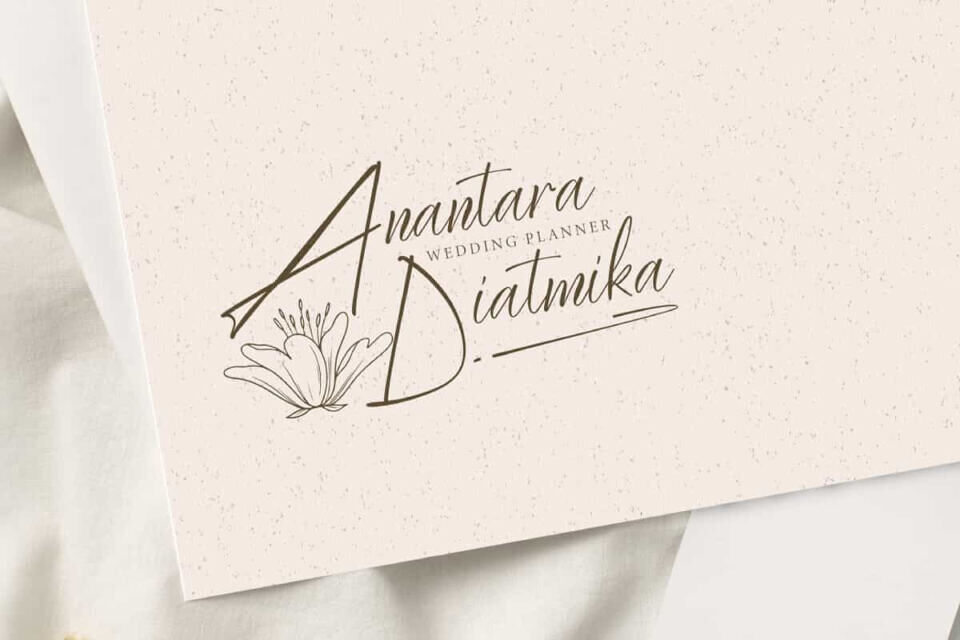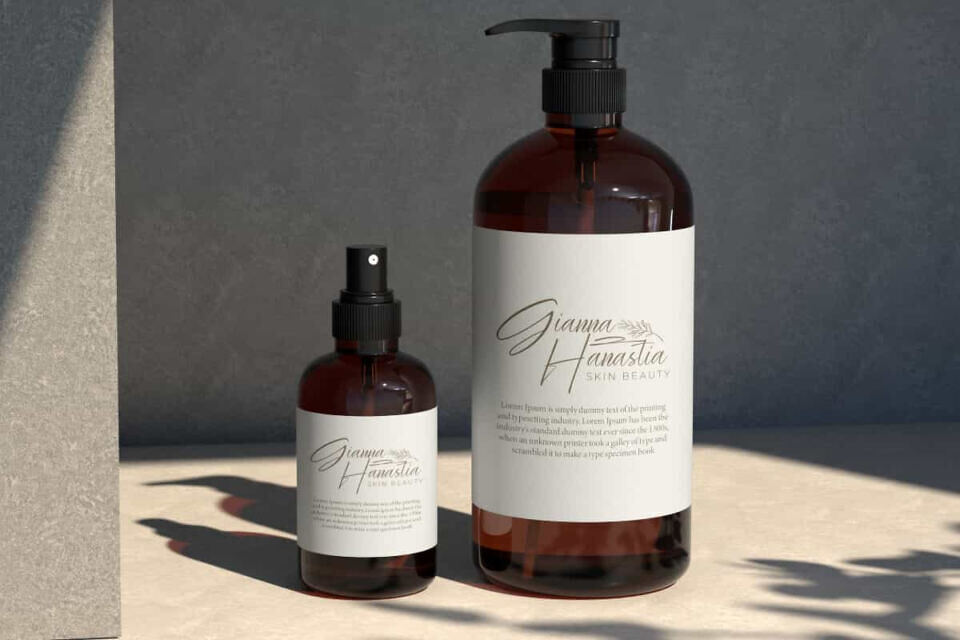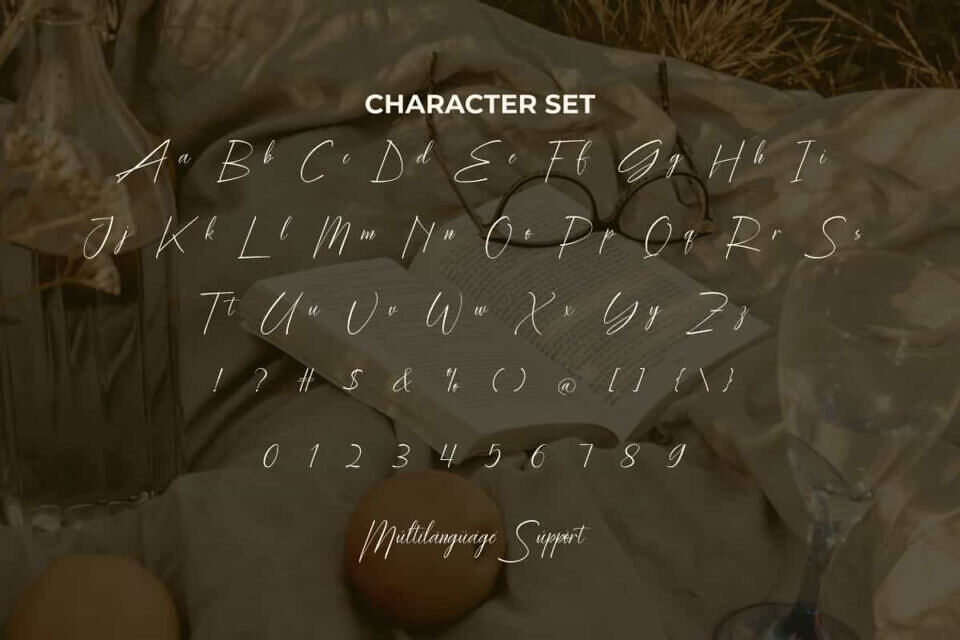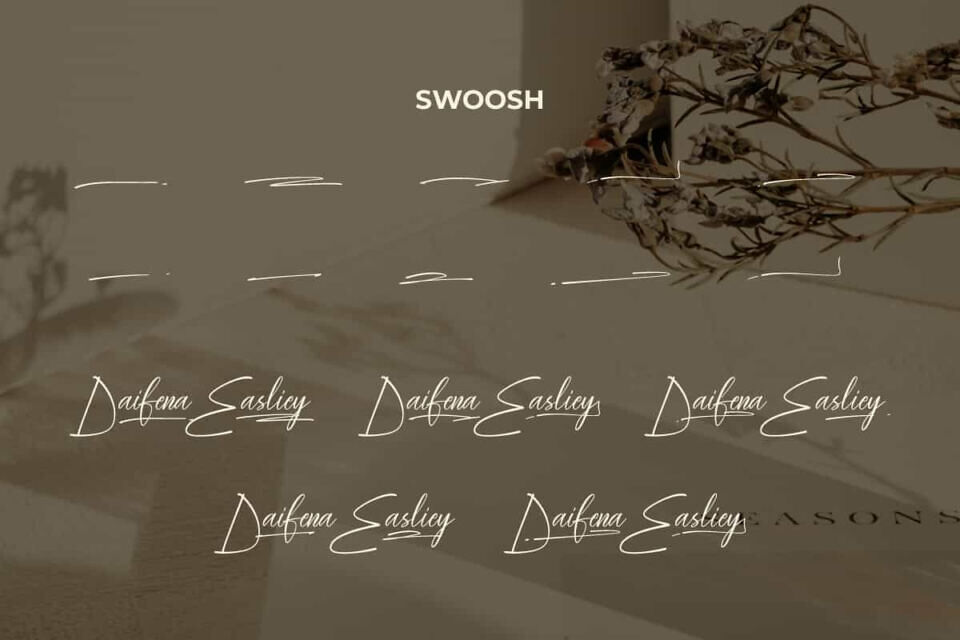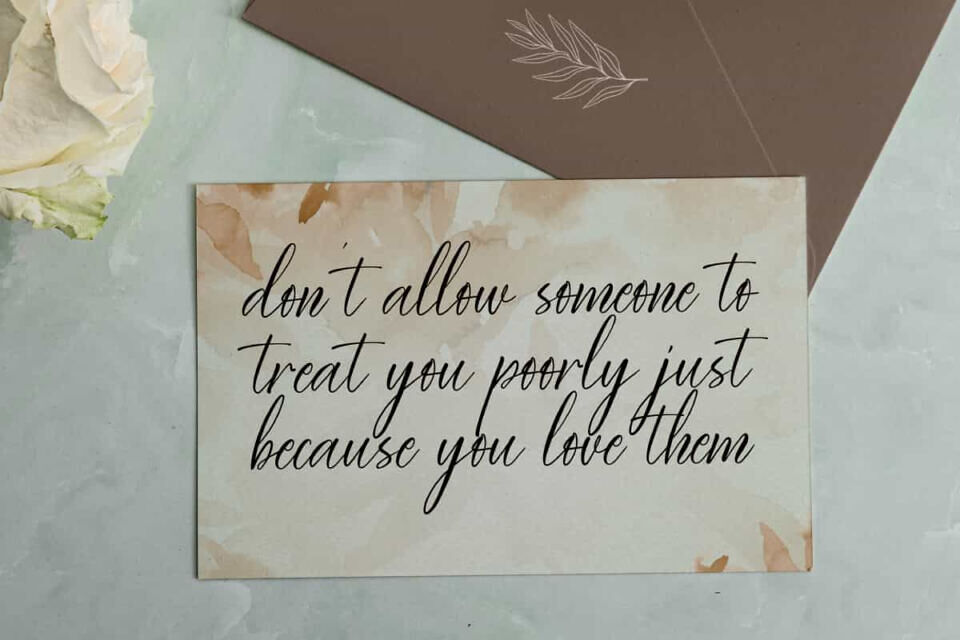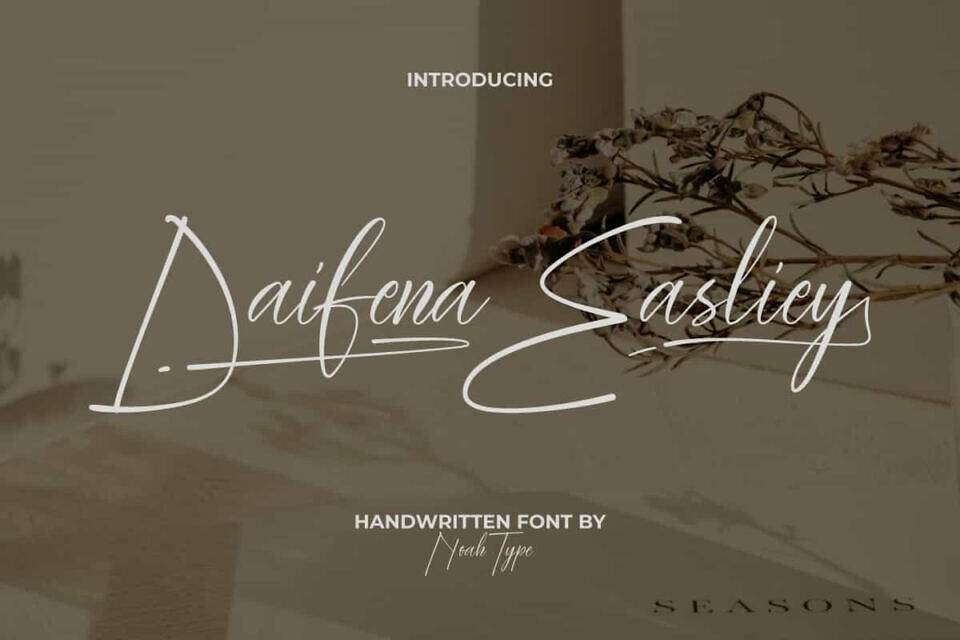
Daifena Easliey Font
Daifena Easliey Font is a fine and delicate handwritten script font. This font provides a beautiful and sleek look through the thin lines. It will be suitable for any industries, such as beauty product, event or wedding organizer, fashion, florist, advertisement, printing, publishing, real estate, restaurant, and more!
Daifena Easliey Font includes full set of Uppercase and Lowercase Basic Characters, Numerals, Punctuation and Symbol. Go get and use this stunning font with Swoosh character as well in your various designs, such as invitation, stationery, brochure, custom design, gift box, greeting or thank you card, invitation, label, menu, poster, quotes, screen printing, signage, website, and more!